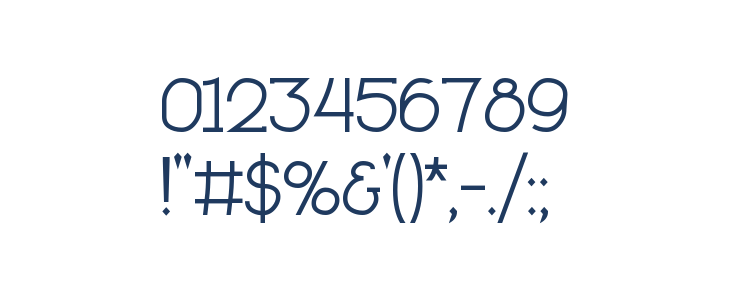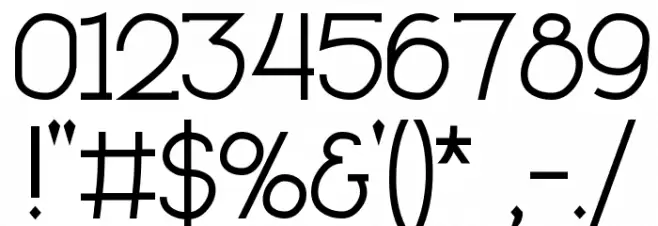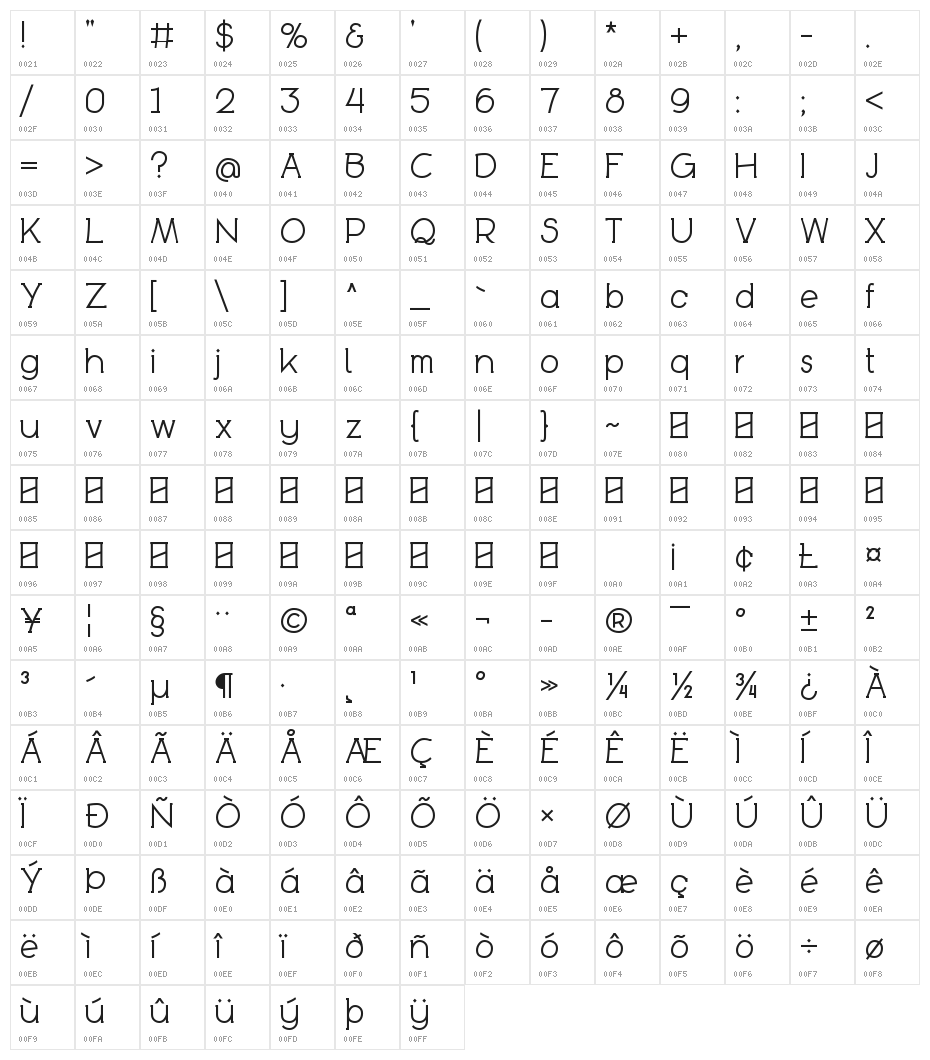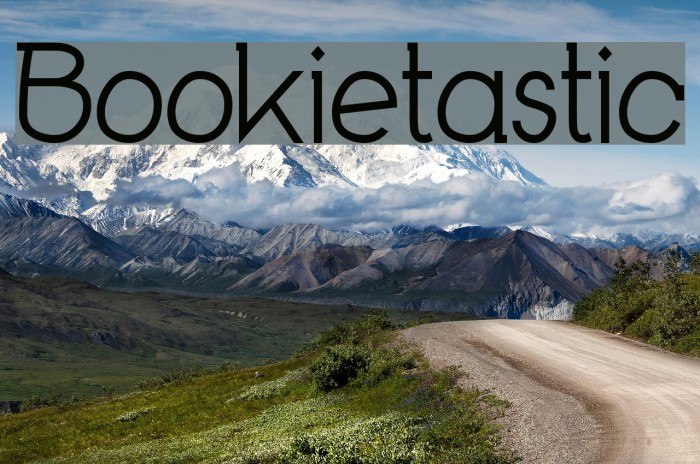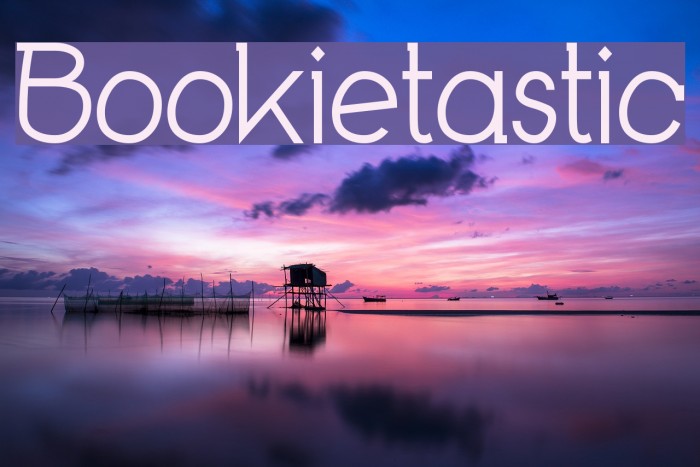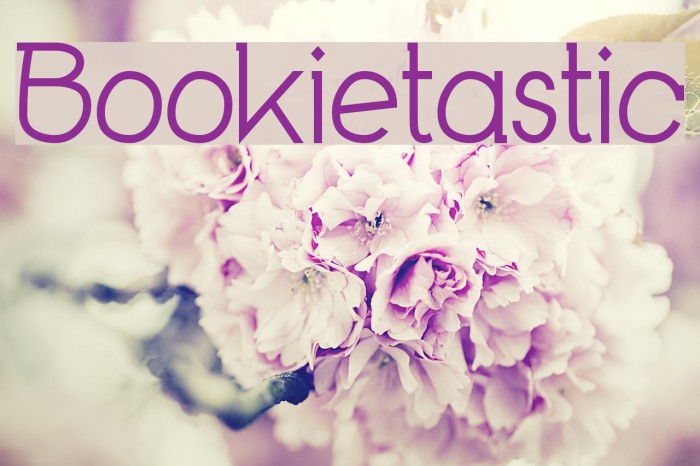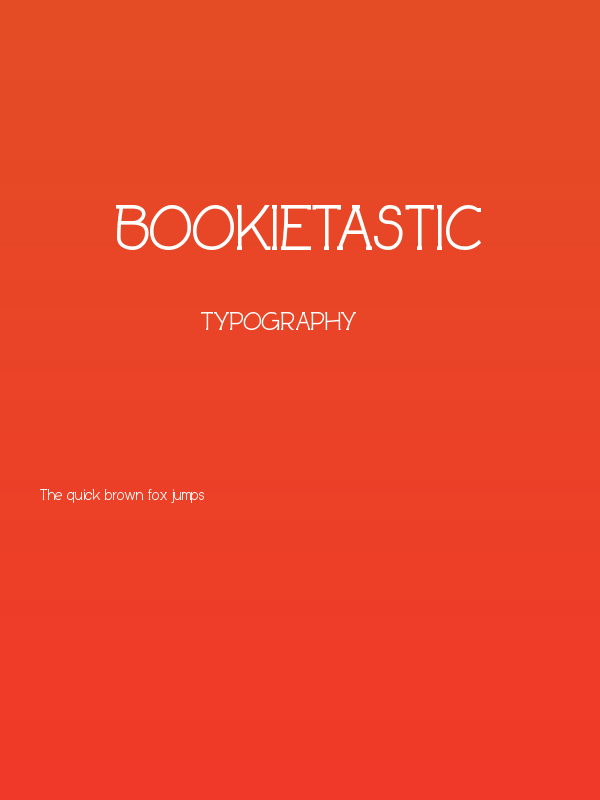
Bookietastic Font
Bookietastic Description
This font features a clean and modern design with a geometric structure. The uppercase letters are bold and slightly condensed, giving a strong presence, while the lowercase letters maintain a consistent height and width, ensuring readability. The numerals are clear and distinct, matching the overall style of the alphabet. Special characters are well-integrated, maintaining the font's cohesive look. The strokes are uniform with low contrast, emphasizing a contemporary aesthetic. This font is versatile, suitable for various design needs.